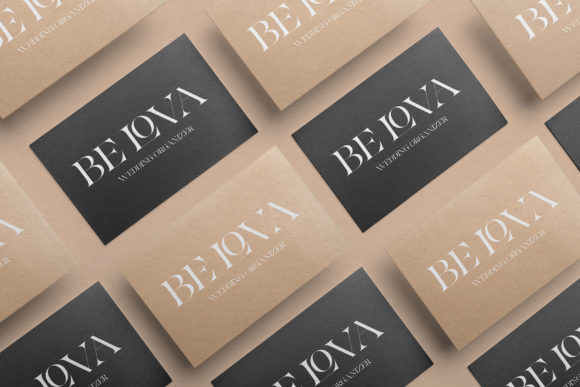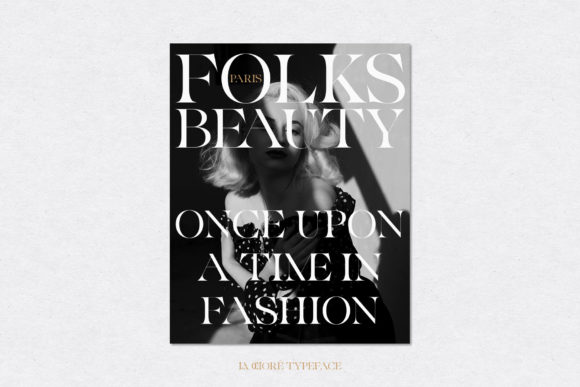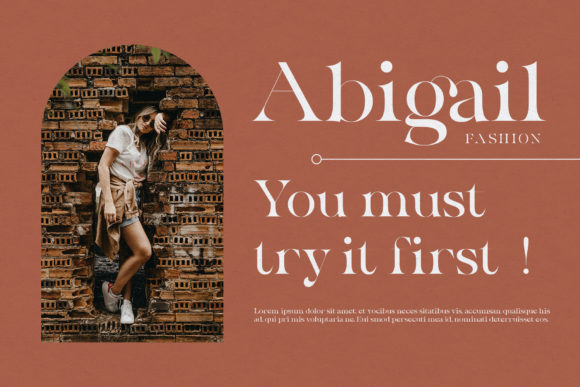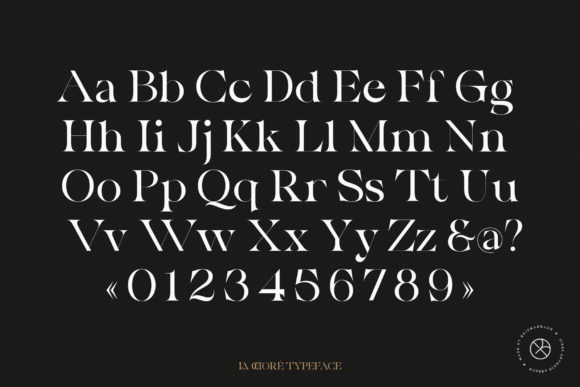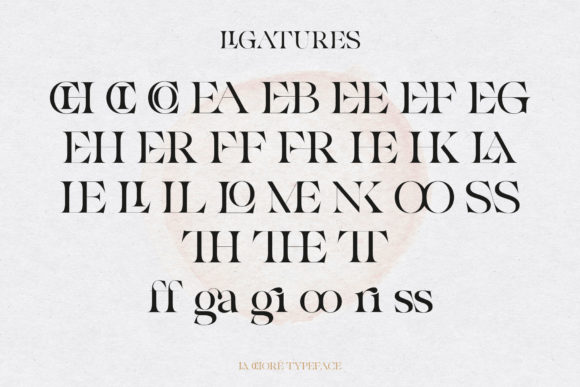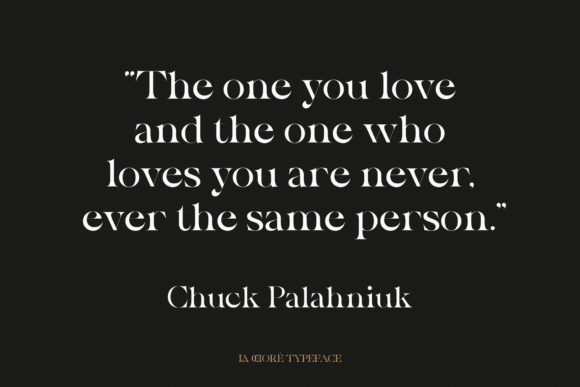
La Chore Font – Free Download
Introduction to La Chore Font
La Chore is a stylish serif font, described by an elegant touch, perfect for your favorite projects.
Key Features of La Chore Font
Why Choose La Chore Font?
La Chore Font offers exceptional quality and versatility, making it a valuable addition to your design toolkit. Whether you’re creating for personal projects or commercial use, La Chore Font delivers professional results.